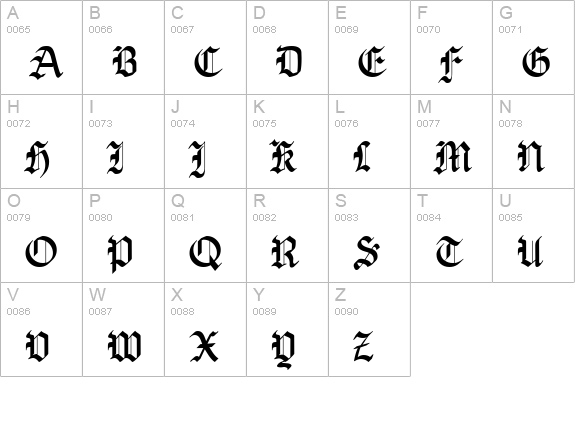
OldHaroldRee Bold is a strong, high-contrast variant in the OldHaroldRee typeface family \xE2\x80\x94 well suited to headlines, attention-grabbing titles, and strong calls-to-action.